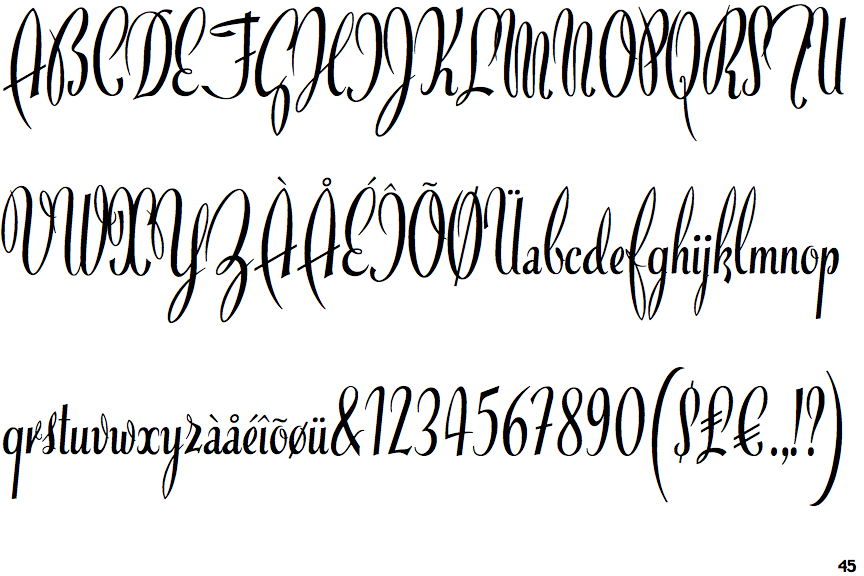
Blanchard
Based on Muriel, designed in 1950 by Joan Trochut-Blanchard for the Fonderie Typographique Française.
Designers: Joan Trochut-Blanchard, Rebecca Alaccari and Patrick Griffin Year: 1950, 2009 Publisher: Canada Type Includes beginnings, endings, ligatures, and alternates. |